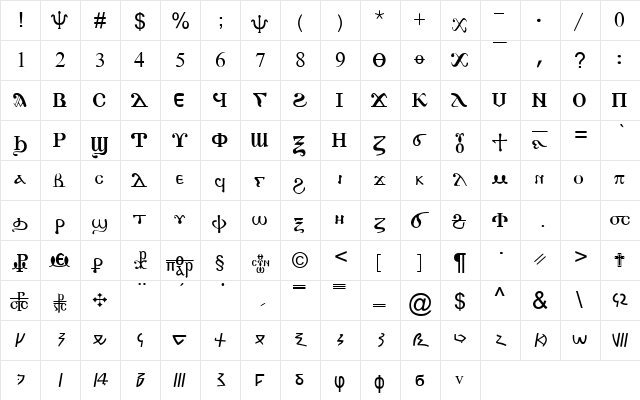
CS Pishoi Regular
| Designer | Wisam MICHAEL |
Design Context for CS Pishoi Typeface
CS Pishoi takes a measured approach to typography — its balanced proportions and neutral character make it a reliable workhorse for both digital and print work.